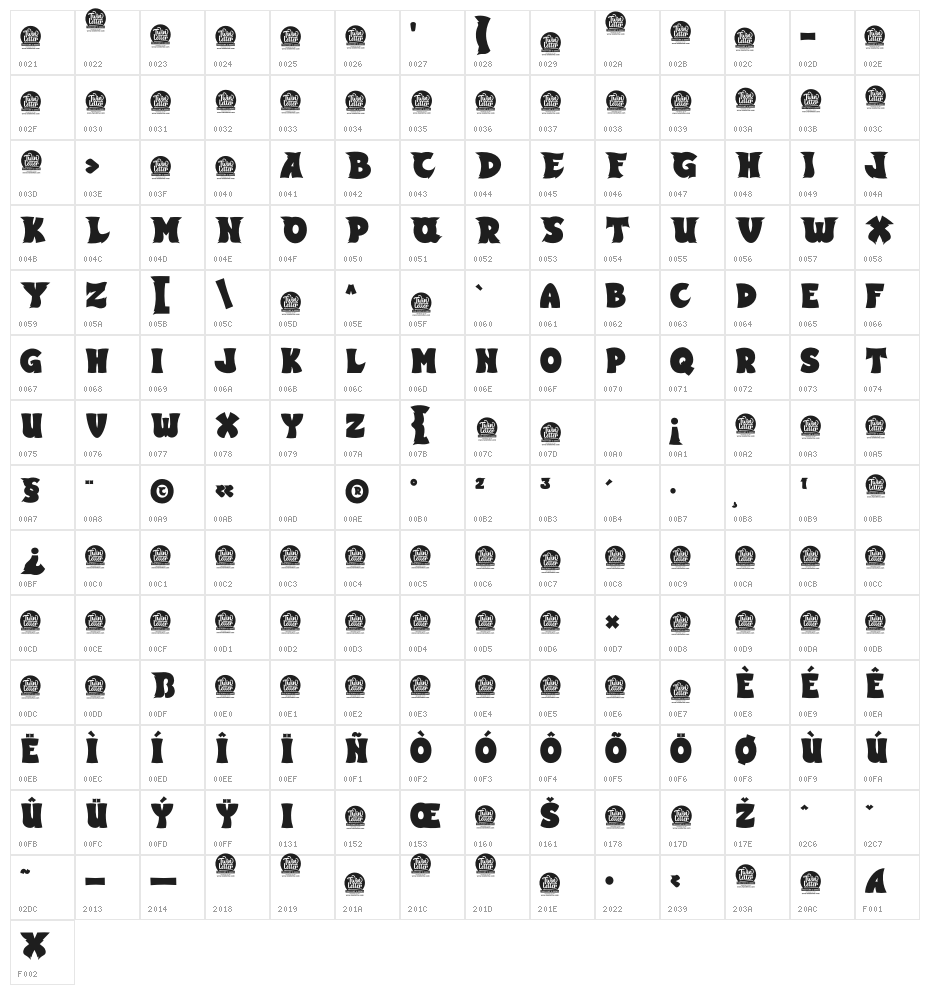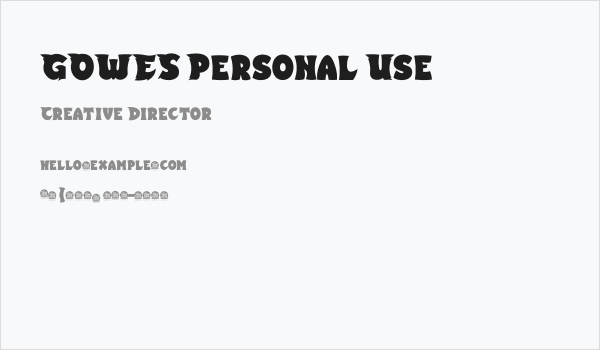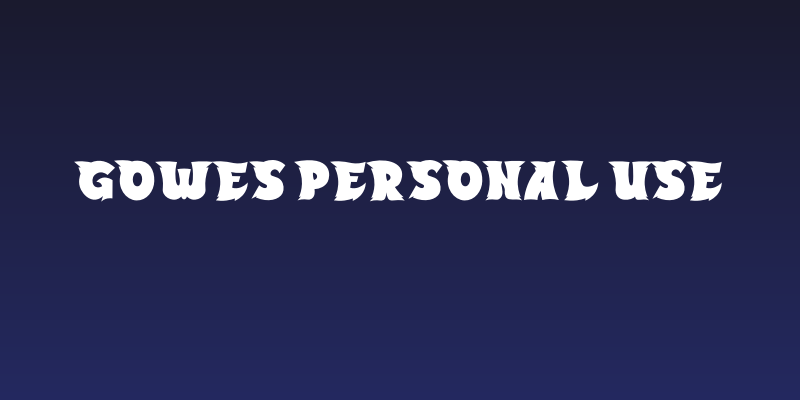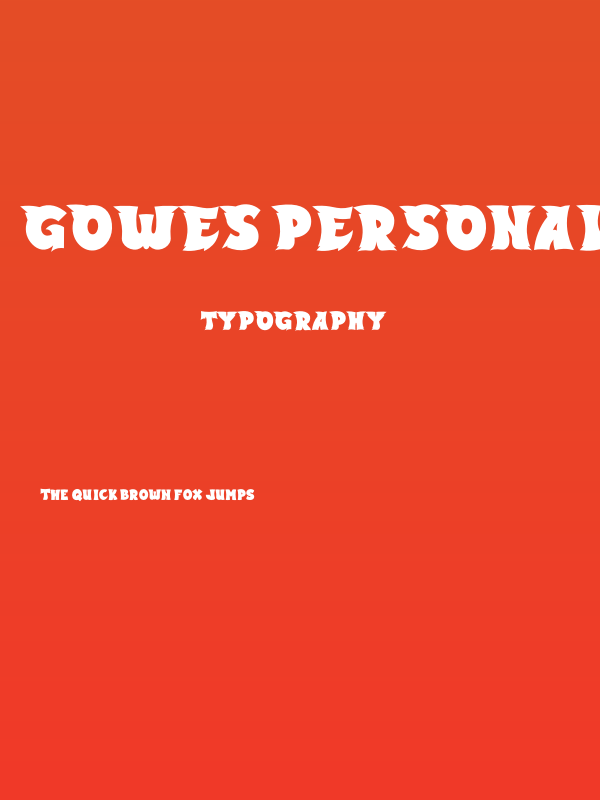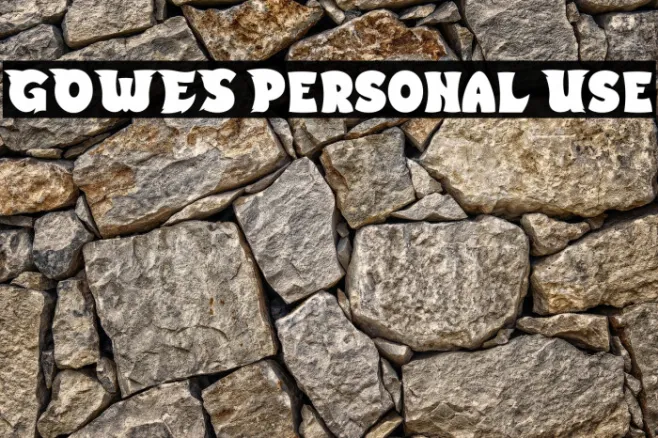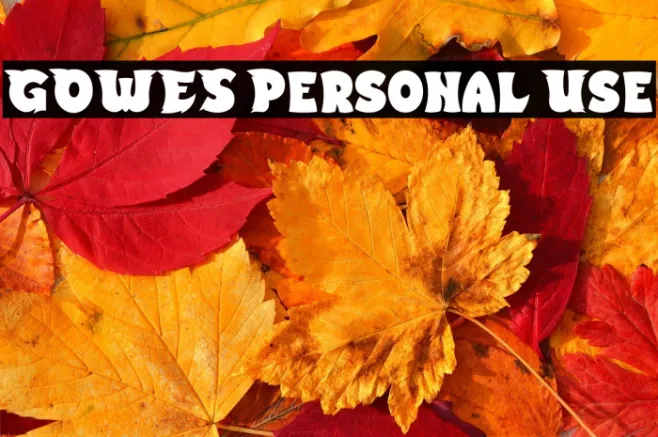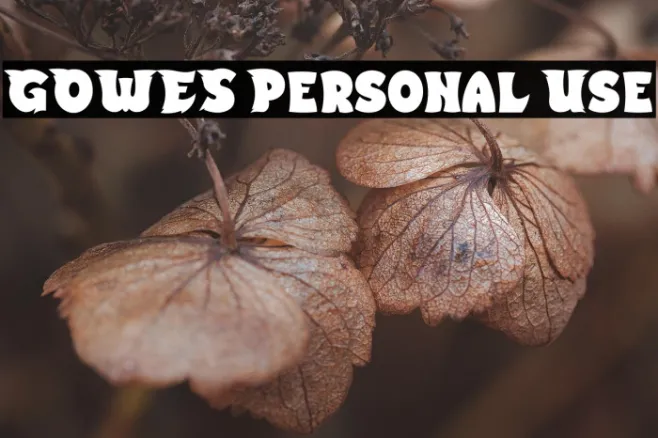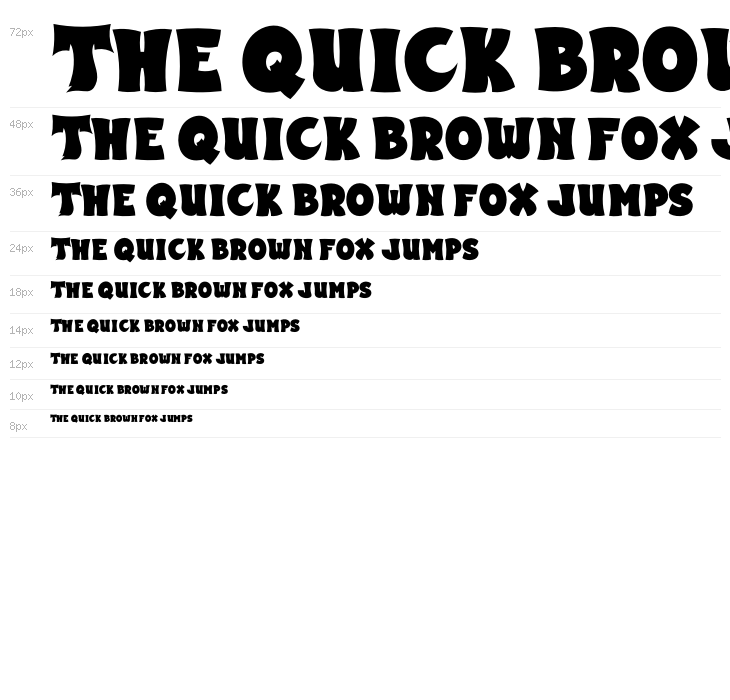
GOWES Personal Use Font
GOWES Personal Use Description
This font features a bold and playful design with a unique, artistic flair. The characters are thick and rounded, with exaggerated curves and angles that give them a dynamic and energetic appearance. The uppercase letters are particularly striking, with a strong presence that commands attention. The lowercase letters maintain the same bold style, ensuring consistency throughout the text. The numbers and special characters are equally bold, making them stand out in any design. This font is perfect for projects that require a fun and lively touch.
| Overall Style | Playful, Artistic |
| Proposed Projects | Ideal for children's book covers, playful branding, event posters, and creative logos. |